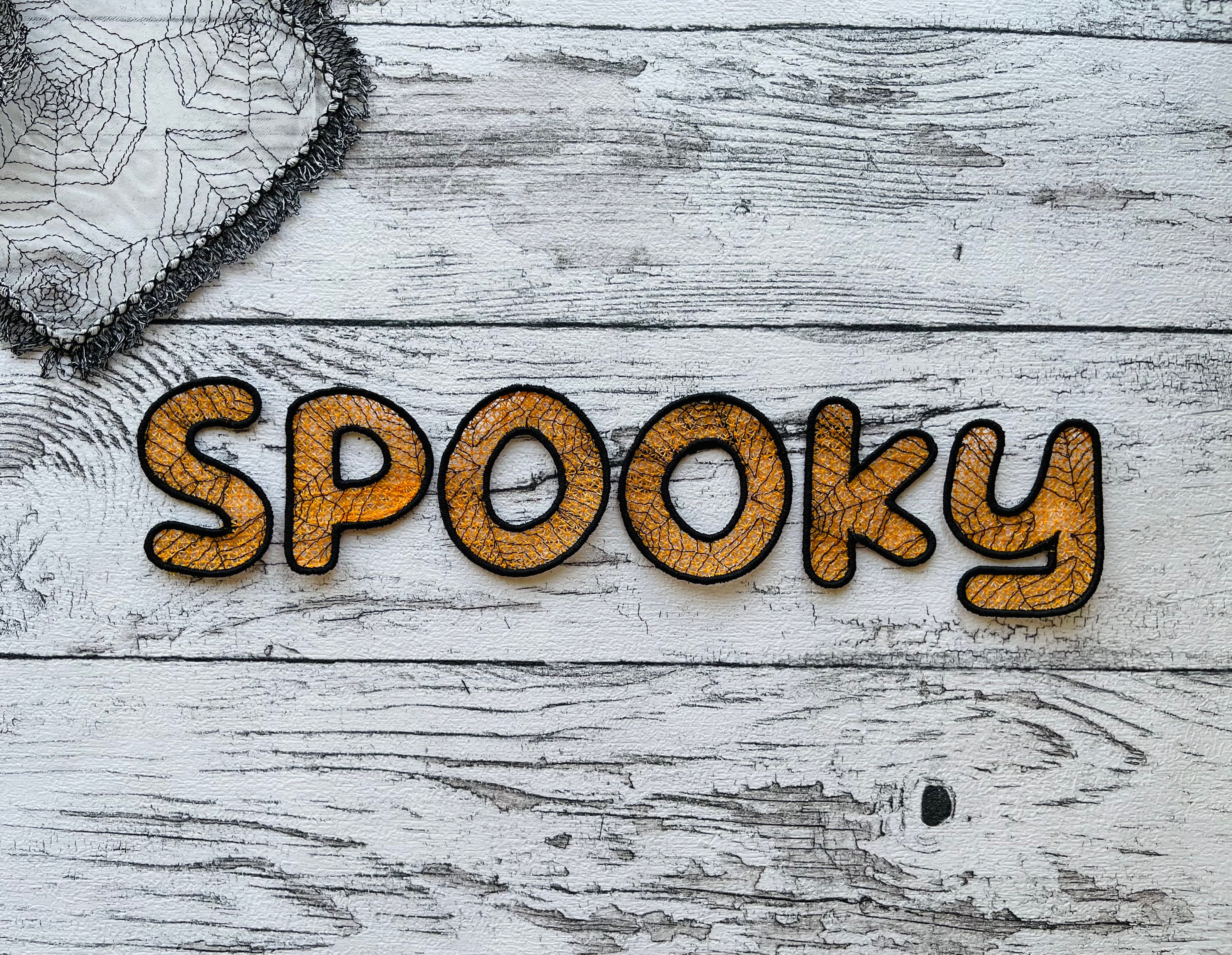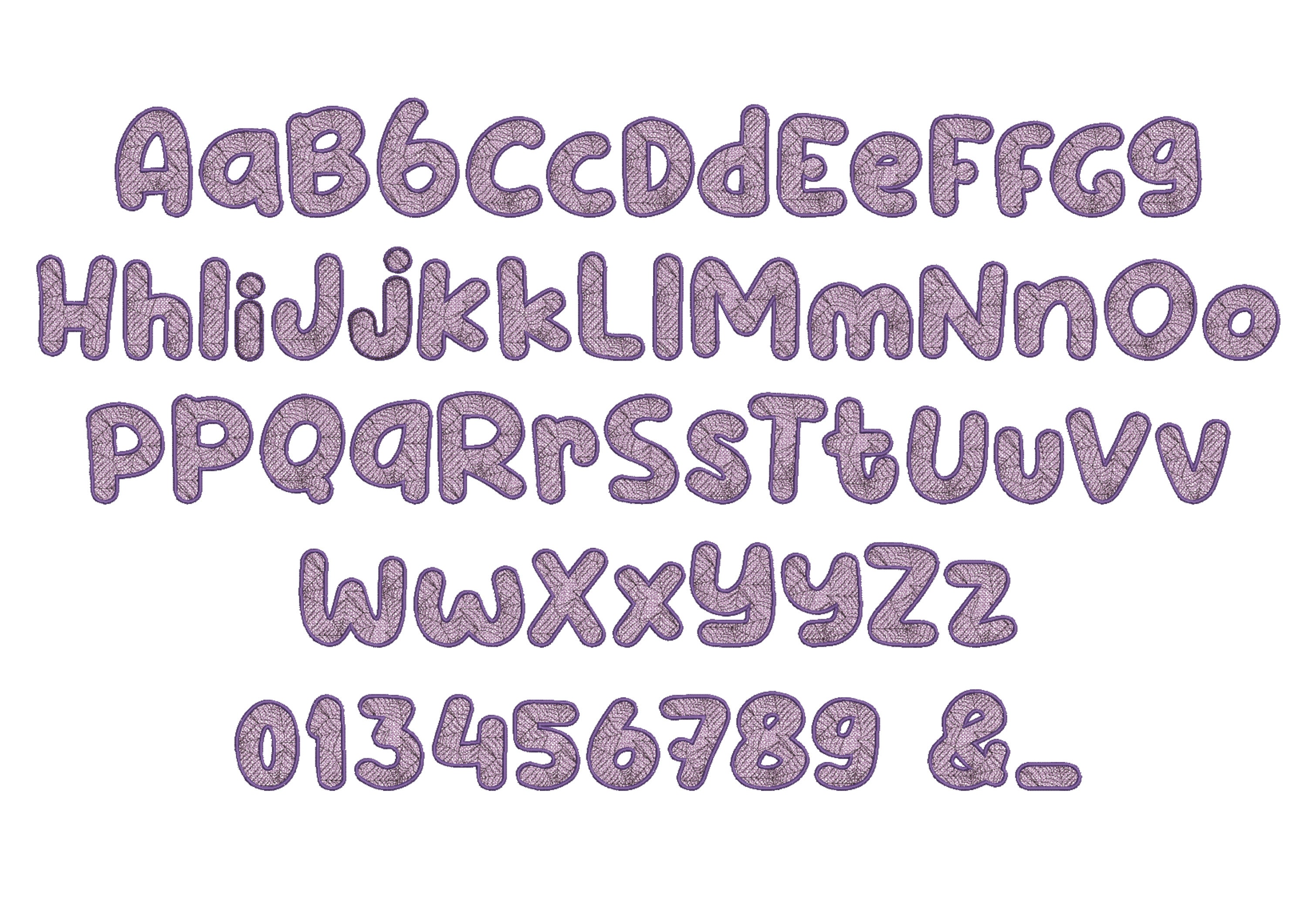
Halloween Spooky Spiderweb Lace Font FSL free standing lace machine embroidery designs, lacy alphabet letters in assorted sizes BX included!
Halloween Spooky Spiderweb Lace Font FSL free standing lace machine embroidery designs, lacy alphabet letters in assorted sizes, BX included!
Uppercase and lowercase, numbers 0-9, ampersand and minus & -
Freestanding lace! The adorable design is stitched onto a non-woven water-soluble stabilizer.